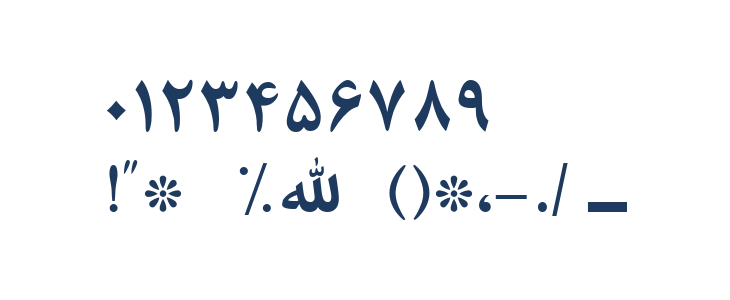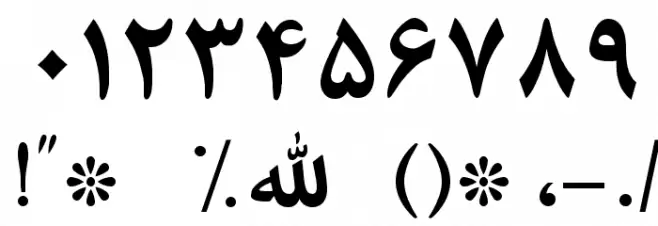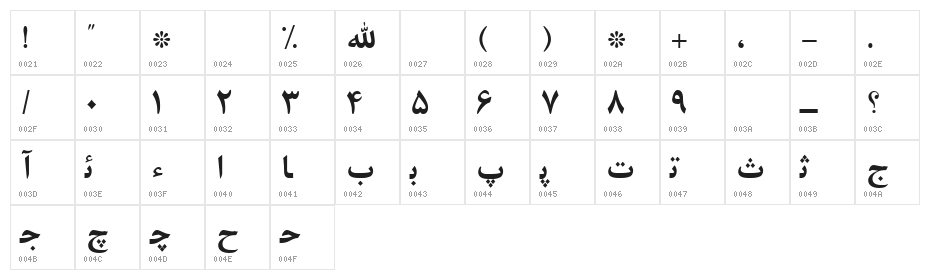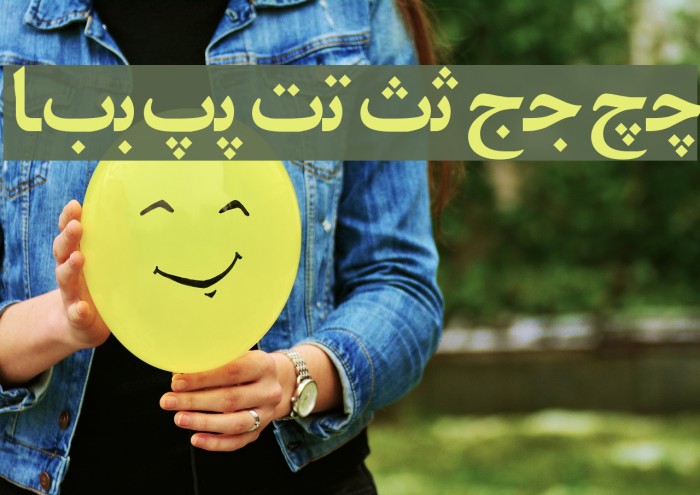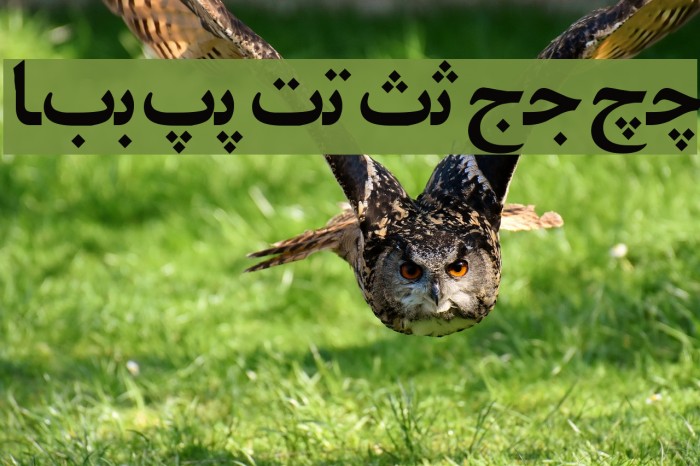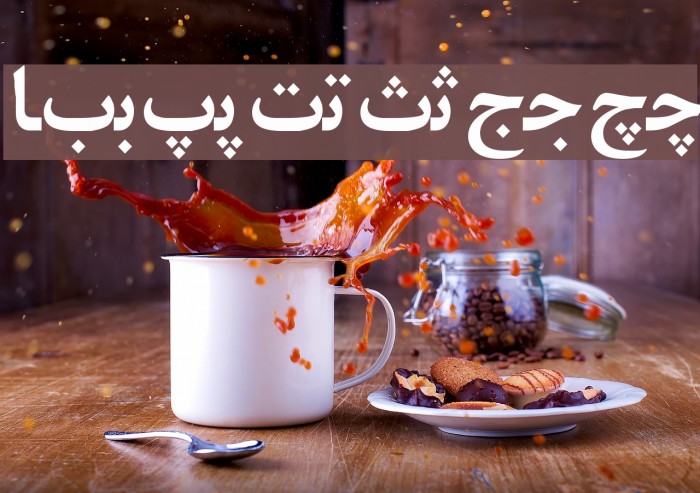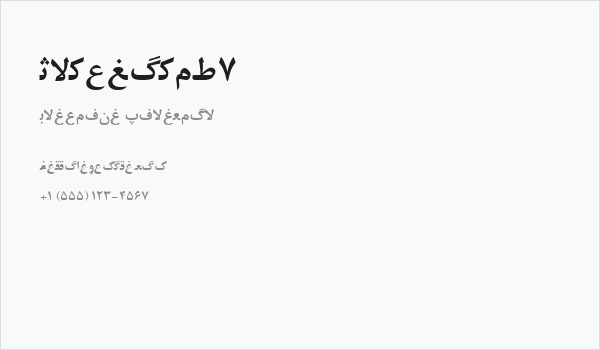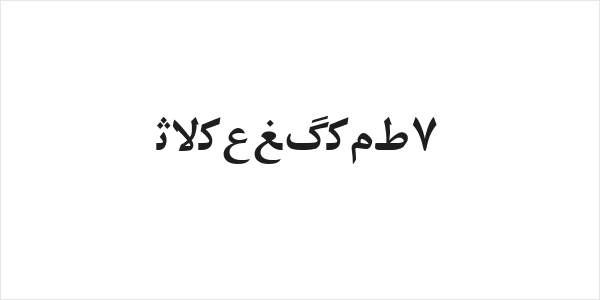
Irnafont_7 Font
Irnafont_7 Description
This font features a bold and striking design, characterized by thick, rounded strokes and a strong presence. The characters are well-defined with a slight slant, giving them a dynamic and energetic feel. The font includes a full set of Arabic letters, numerals, and a selection of punctuation marks and special characters. The overall appearance is modern and clean, making it suitable for various applications where readability and impact are essential. The spacing between characters is balanced, ensuring clarity and legibility.
A bold, modern Arabic font with rounded strokes and dynamic slant from Uncategorized fonts.
- Proposed Projects: Ideal for branding, advertising, headlines, and any project requiring a strong visual impact.
- Use Case: Headlines, Logos, Advertising